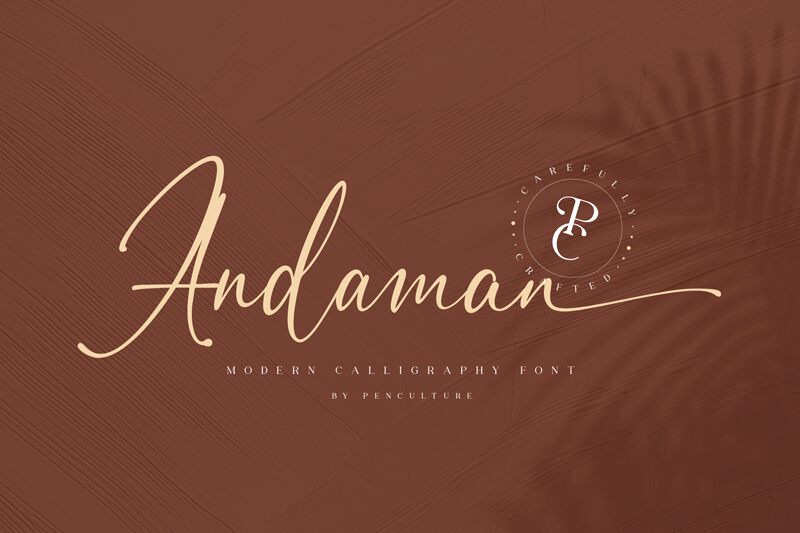
Andaman, a mesmerizing calligraphy font designed by Pen Culture, brings an elegant touch to any project. With its delicate strokes and graceful curves, this light-weight font exudes sophistication and refinement. Perfect for creating wedding invitations, luxury branding, or feminine blog headers, Andaman adds a touch of romance and charm to your designs. Its flowing script style can also enhance artistic projects such as poetry books or handwritten quotes. Let Andaman elevate your creations with its timeless beauty and artistic flair.
Designed by Revo Farisky from Pen Culture in 2022